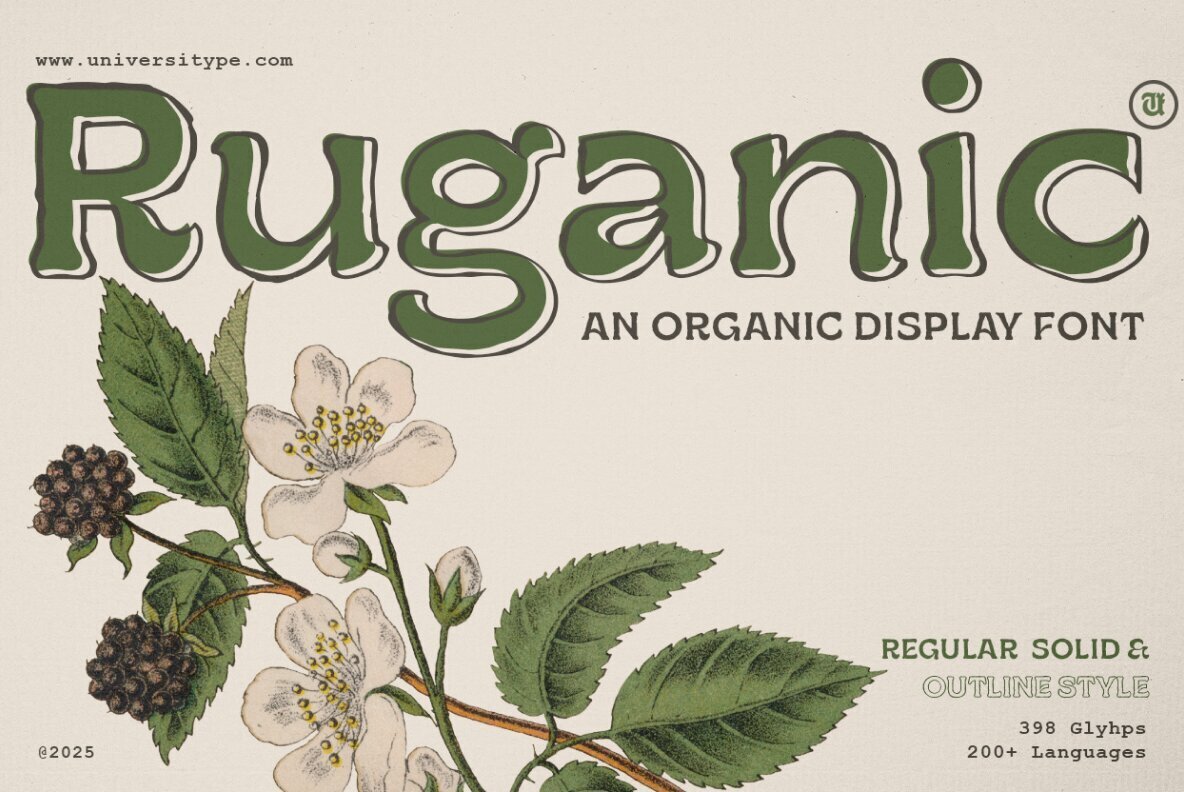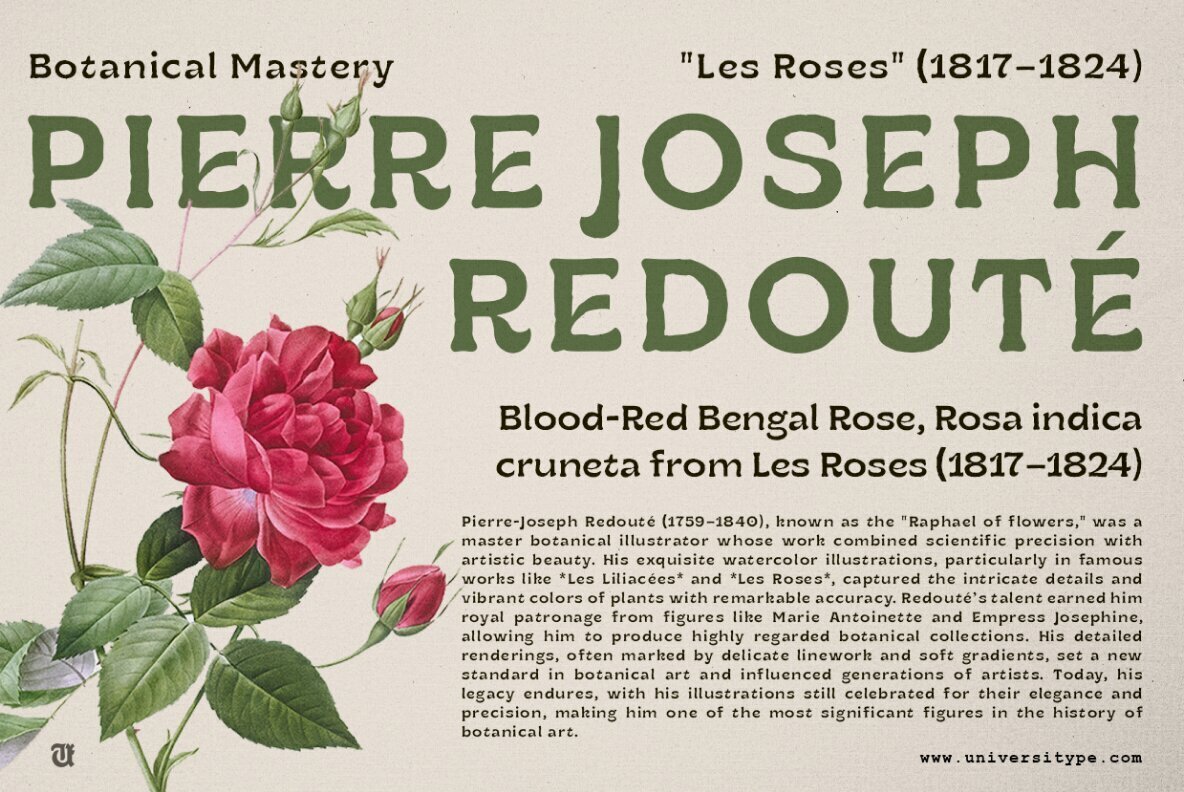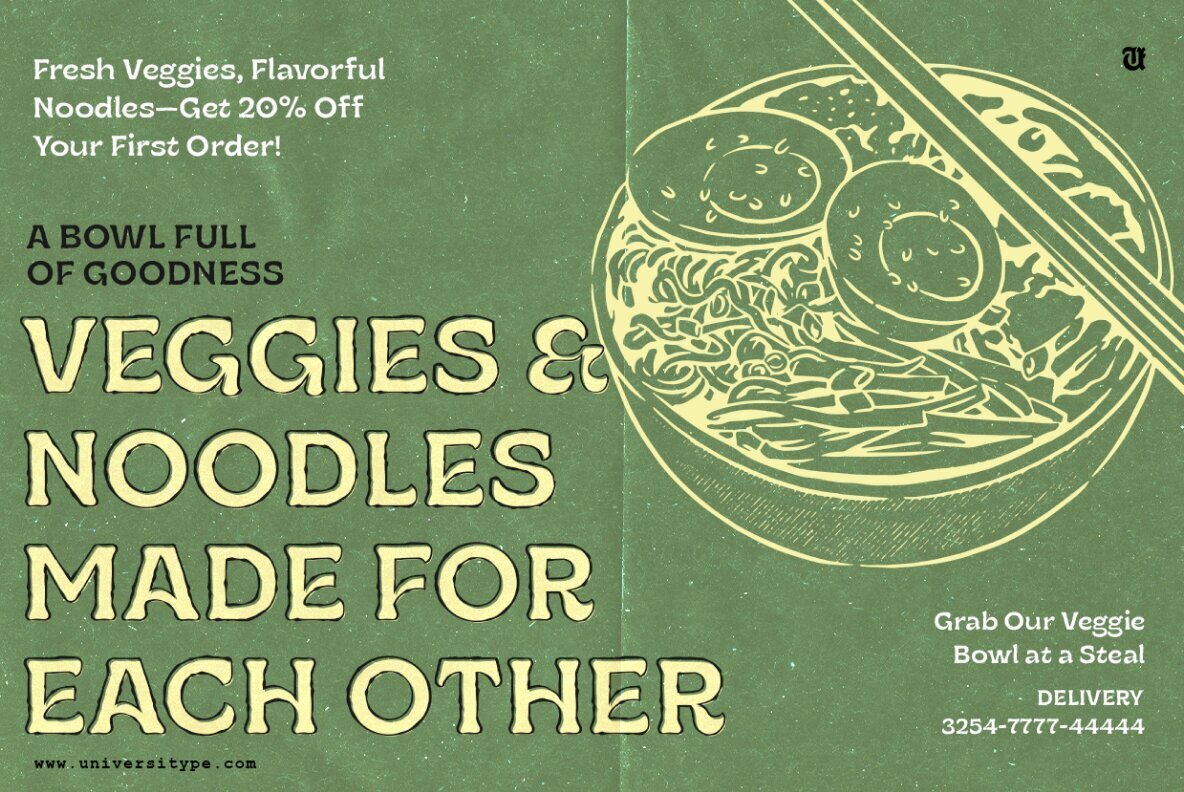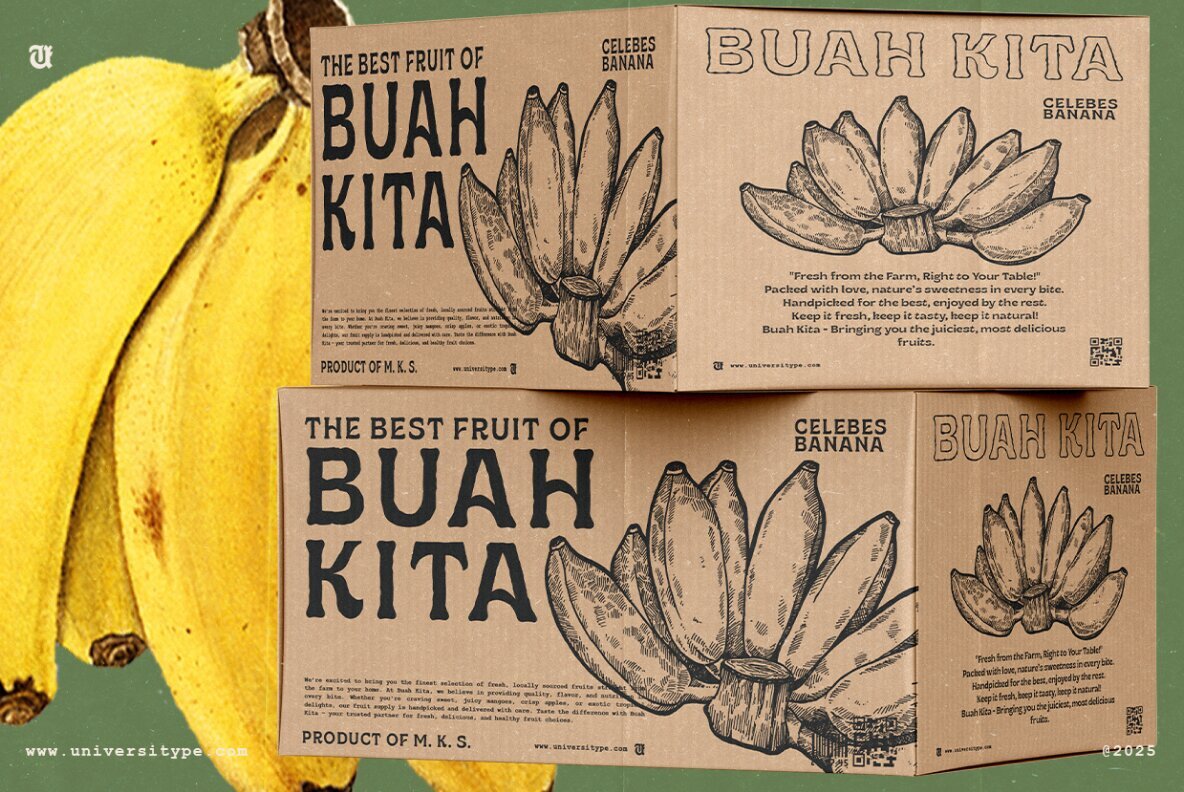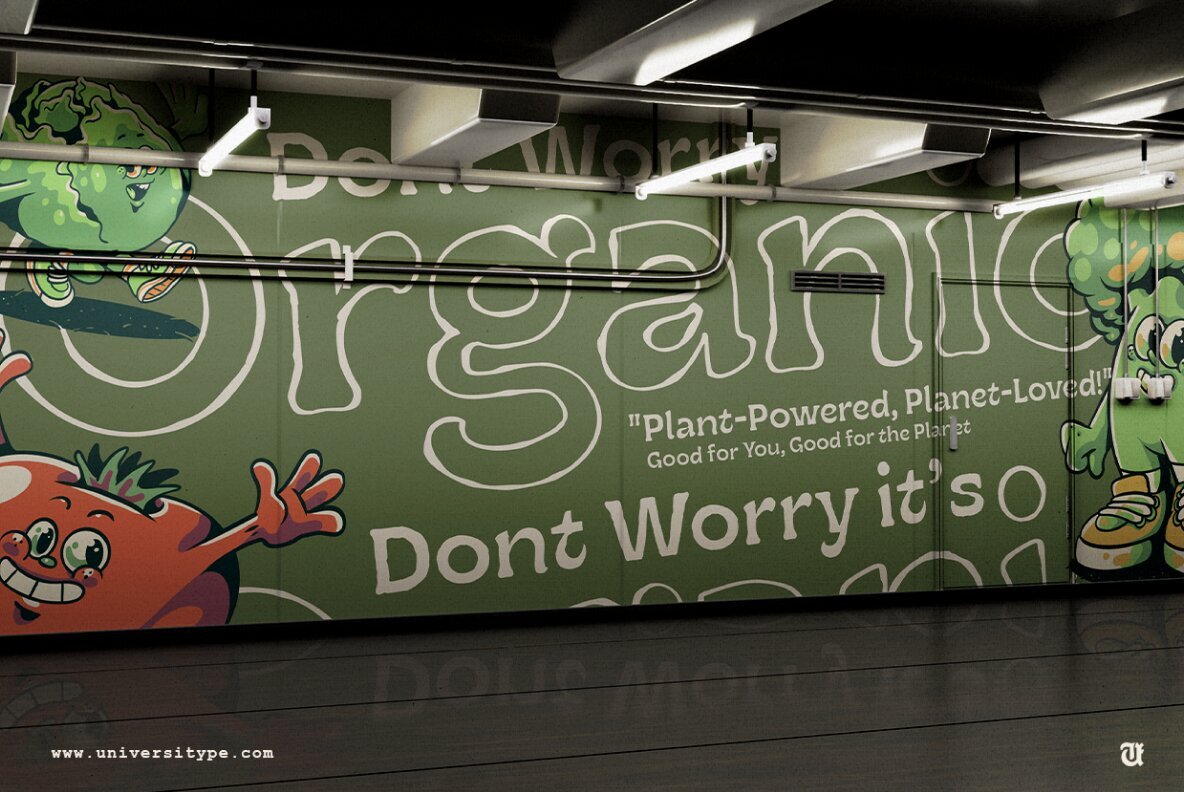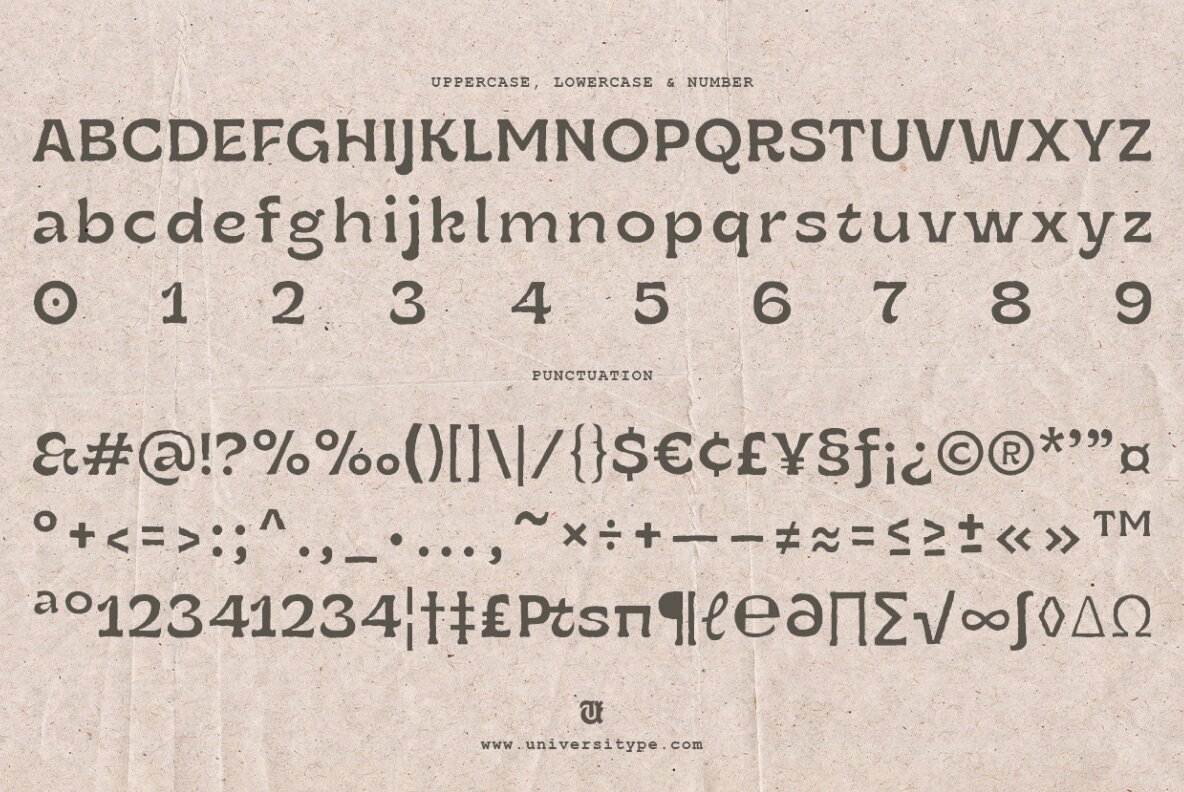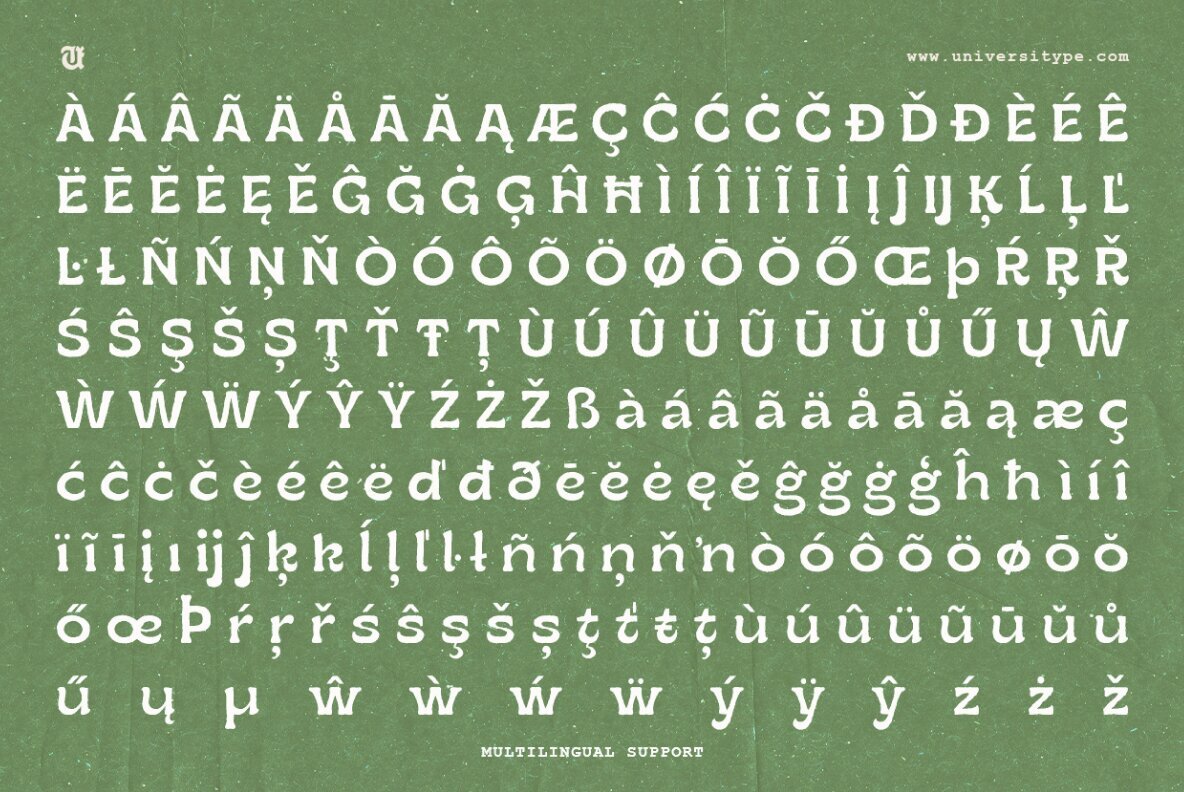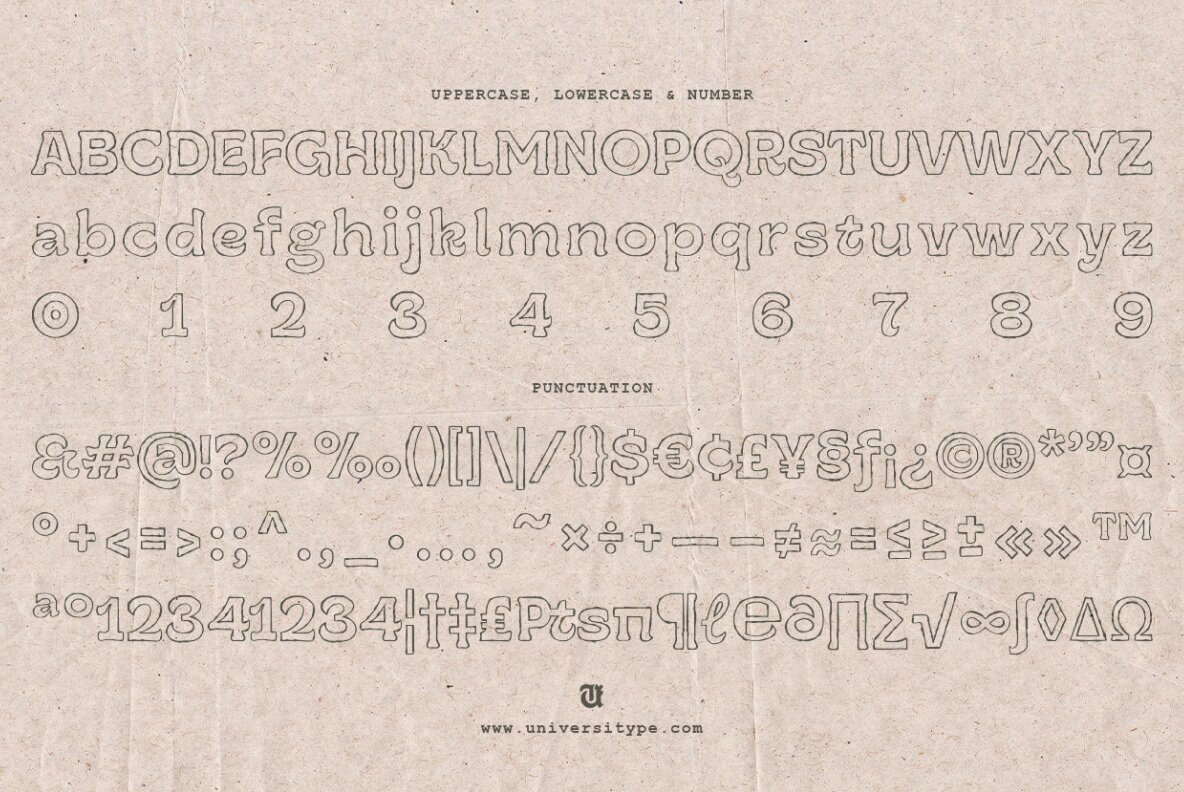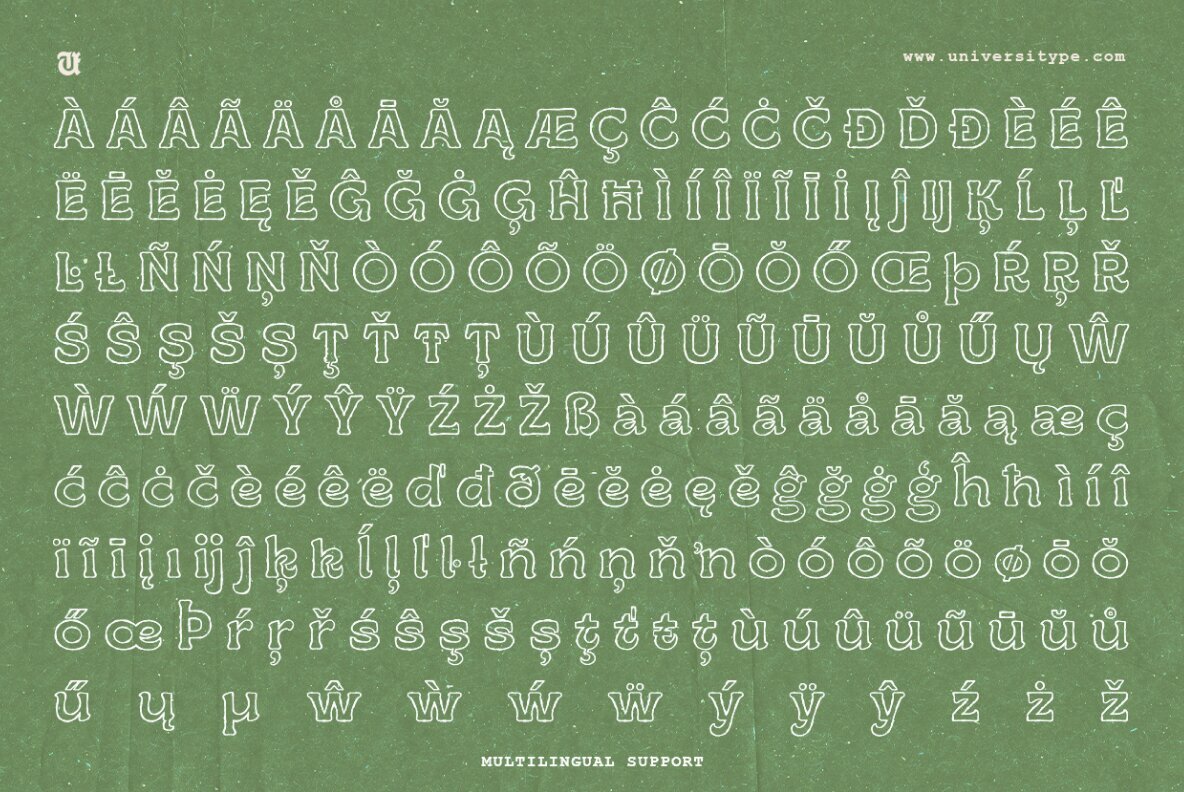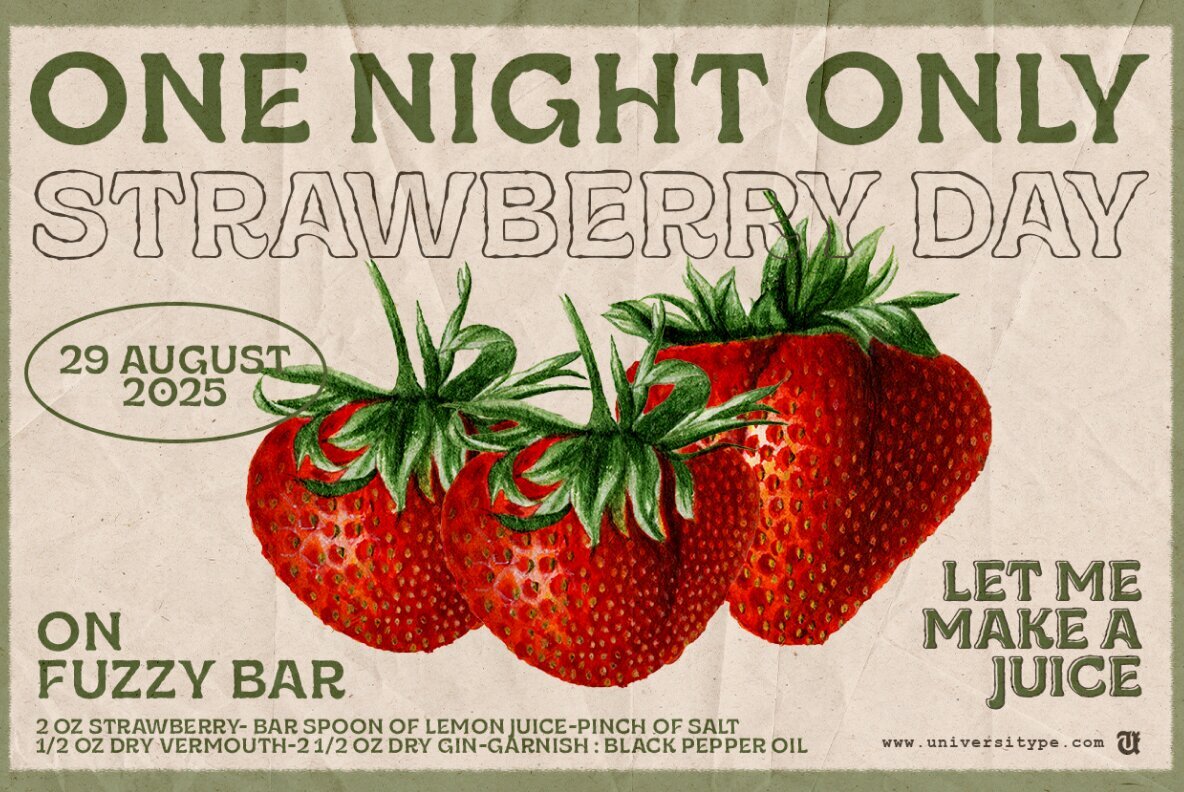
UT Ruganic Font
UT Ruganic Outline
UT Ruganic Solid
The UT Ruganic font family is a versatile and distinctive typeface collection that brings an organic, handcrafted aesthetic to any design project. With its unique blend of rustic charm and modern readability, it’s perfect for creating eye-catching visuals that resonate with themes of nature, sustainability, and artisanal quality. The UT Ruganic font draws inspiration from vintage botanical illustrations and hand-lettered signage found in historical natural product packaging. The designers sought to capture the essence of organic forms and translate them into a functional typeface that evokes authenticity and craftsmanship.Target Audience:
Key Features:
Inspiration Behind UT Ruganic Design:
Usage Suggestions: